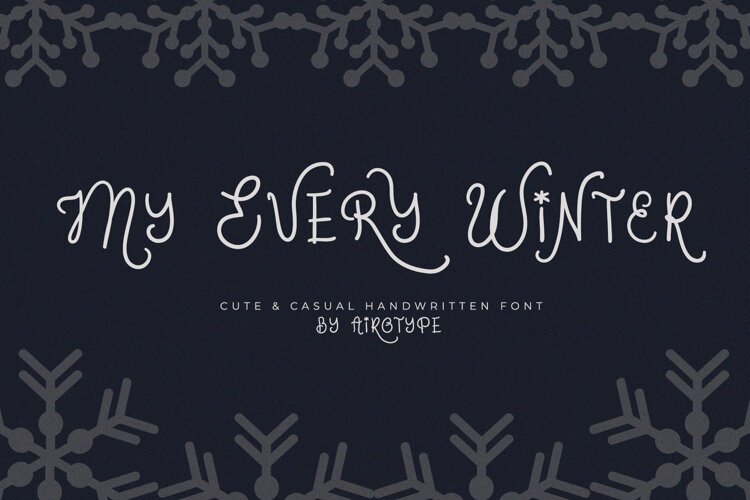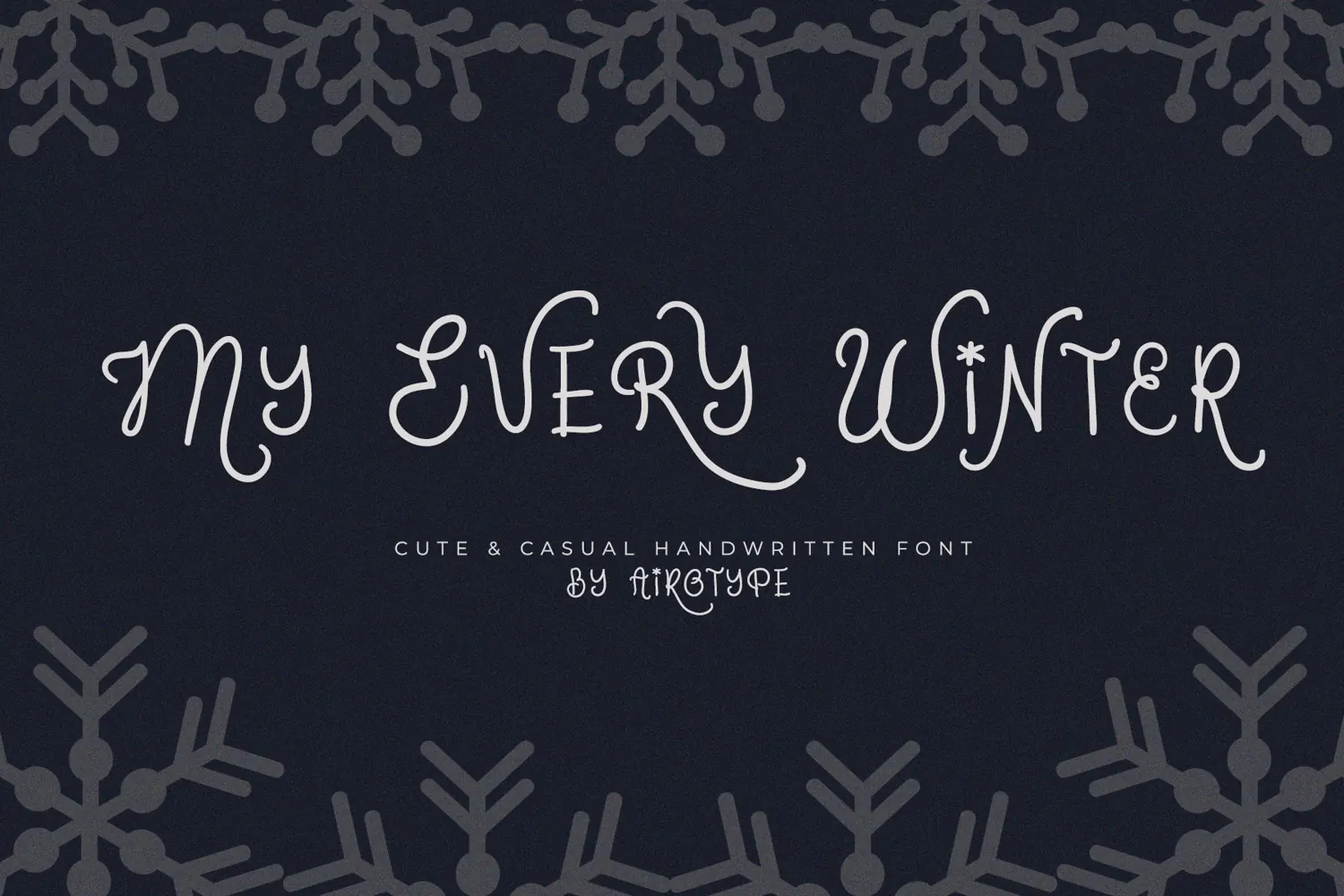
My Every Winter is all caps handdrawn font with casual, luxury, and bouncy vibes. This font radiates elegant and freedom touch into the design.
My Every Winter font has swirl alternates/extra glyphs, that will add more stylish and beauty personality.
This font is beautifully gorgeous for design that needs luxury and elegant vibes, such as wedding, invitation, branding, logo, birthday, marketing, editorial, poster, social media and others.